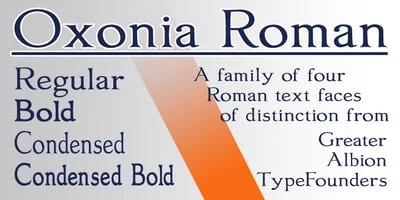
Oxonia Roman Font
Oxonia Roman Font is ideal for prestigious universities, classical education institutions, academic publications, scholarly research journals, historical museums, traditional libraries, and distinguished educational foundations. This distinguished typeface embodies Oxford's academic excellence and Roman scholarly tradition, bringing intellectual authority and classical learning heritage to any design project celebrating higher education and scholarly achievement.
What makes Oxonia Roman Font exciting is its masterful fusion of Oxford University tradition and classical Roman typography that perfectly captures the essence of centuries-old academic excellence and scholarly pursuit. The font features refined letterforms with classical proportions and academic dignity that evoke both the historic spires of Oxford and the timeless wisdom of Roman scholarly texts. Its authoritative character inspires intellectual respect while maintaining exceptional readability for both academic documentation and scholarly publishing applications.
The Oxonia Roman Font family includes multiple weights with complementary italic variations and academic ornamental elements. The character set features scholarly ligatures, educational symbols, classical alternates, and intellectual decorative accents that enhance the font's prestigious appeal. Advanced OpenType features include historical character variations and multilingual support for international academic institutions and scholarly publishing requirements.
Whether you're designing academic institution brands, creating scholarly publication materials, or developing educational heritage content, Oxonia Roman Font provides exceptional scholarly credibility and versatility. This distinguished typeface transforms ordinary text into authoritative academic experiences that honor educational tradition while establishing respected recognition in competitive higher education and scholarly publishing marketplaces.